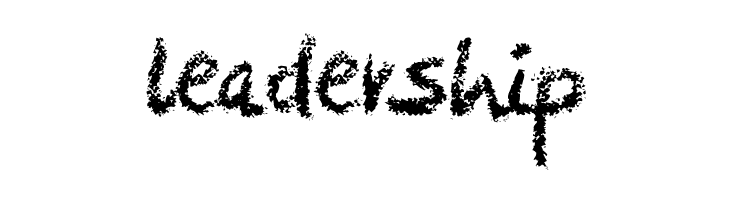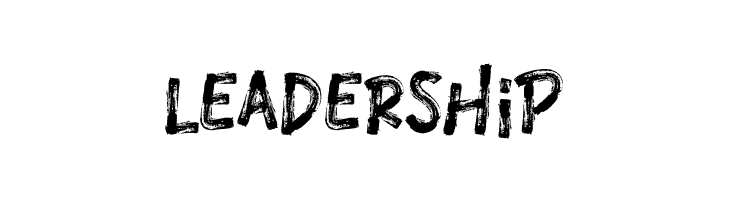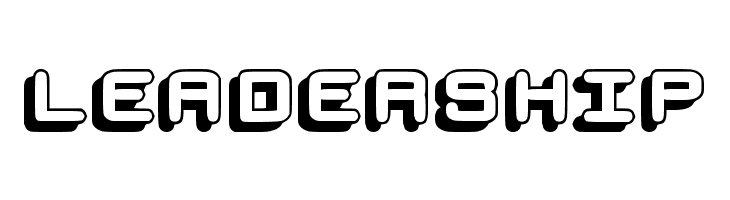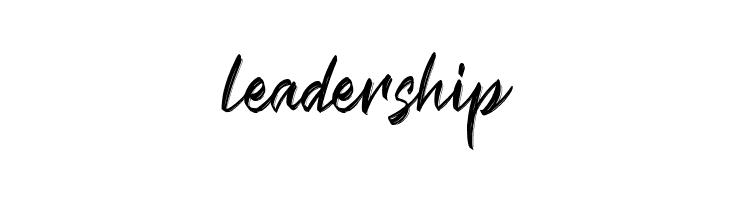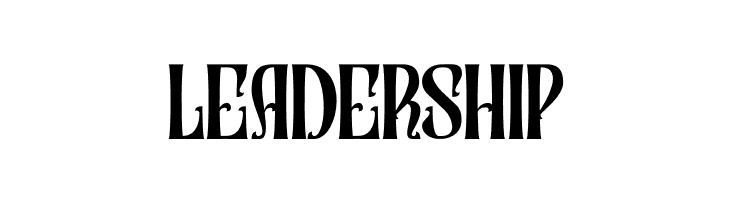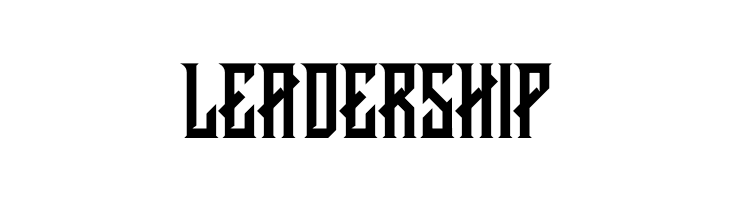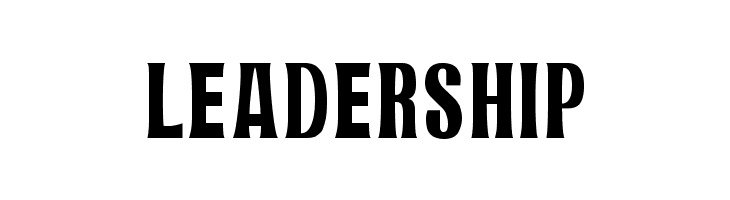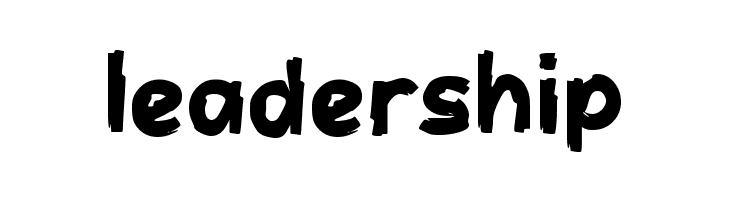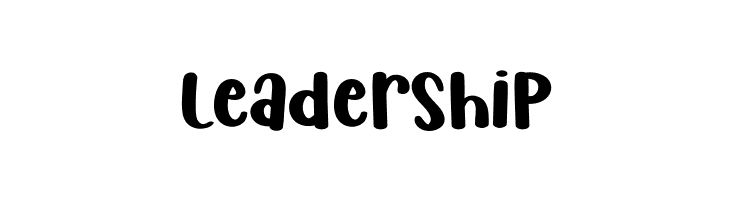
A geometric, industrial-style font with bold, uniform strokes and rounded corners.
An ornate blackletter font with intricate, medieval-inspired letterforms.
An ornate blackletter font with intricate and decorative strokes.
A playful, hand-drawn font with bold, varied strokes and a whimsical style.
A playful, hand-drawn font with irregular strokes and artistic flair.
A playful, cloud-inspired font with a whimsical and airy design.
A playful, bold font with a hand-drawn, whimsical style.
An elegant, flowing script font with connected characters and graceful curves.
A whimsical, hand-drawn font with playful, irregular letterforms.
A hand-drawn, casual font with a friendly, organic style.
A bold, textured font with a modern and edgy style.
A bold, outlined serif font with a three-dimensional effect.
Whimsical, abstract dingbat font with faces, eyes, and geometric motifs.
Hand-drawn decorative font with clothing illustrations as characters.
A playful, bold font with rounded edges and a whimsical style.
A playful, cloud-themed decorative font with bold, outlined letters.
A pixelated, retro-style font with a digital, geometric design.
A pixelated, monospaced font with a retro digital style.
A bold, pixelated font with a retro, digital aesthetic.
A whimsical, cloud-themed decorative font with bold, playful characters.
A playful, cloud-themed font with bold, rounded characters.
A playful, cloud-textured font with a bold and whimsical style.
A tall, narrow font with minimal serifs and a modern, elegant style.
A tall, narrow font with a modern and elegant style.
A playful, cloud-like font with bold, rounded characters and a bubbly texture.
A playful, hand-drawn font with rounded, casual characters.
A bold, cloud-like font with rounded, irregular edges and a playful, whimsical style.
A playful handwritten font with irregular strokes and a casual feel.
A playful, casual handwritten font with smooth, flowing lines and a natural feel.
A playful, handwritten font with smooth, rounded strokes and a casual style.
A bold, expressive handwritten font with fluid and dynamic strokes.